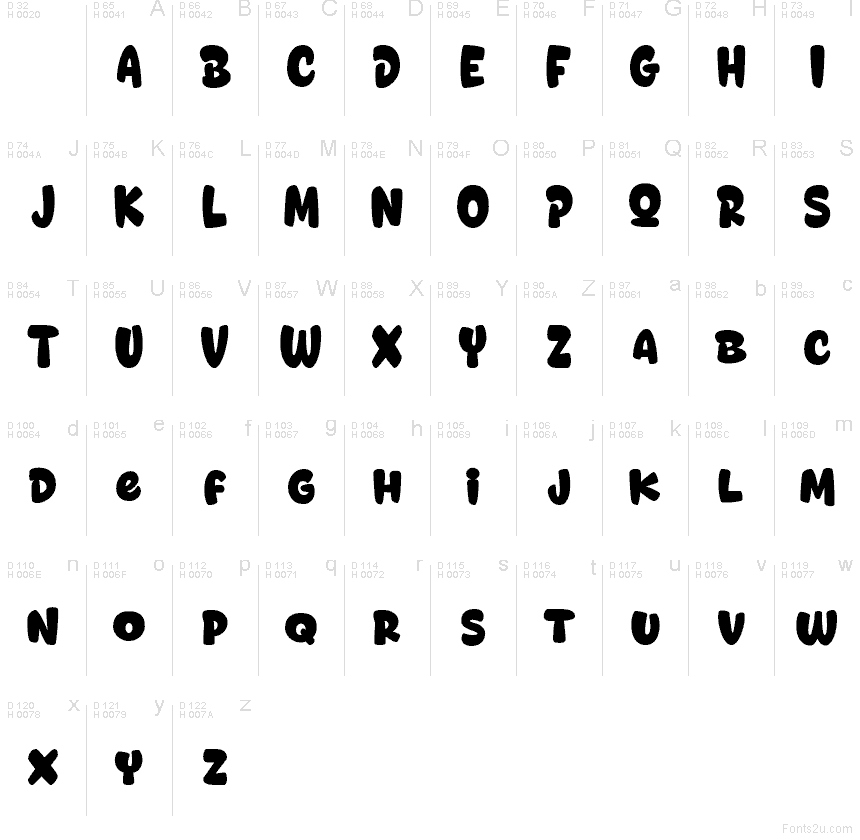
Donut Darling font by Blankids is a free cartoon display typeface with letters that feel puffed, frosted, and fresh from the bakery. Each rounded, chunky shape looks almost squeezable, with playful curves that stack together like icing blobs on a donut box. The tight, bouncy rhythm gives your words a joyful, hand-drawn energy that’s easy to read while still looking delightfully indulgent.
Using Donut Darling, this free font shines on kids’ packaging, dessert shop logos, birthday invitations, playful social posts, headline banners, and food truck menus. Its bold weight holds up beautifully at large sizes, where every gooey curve can be seen. Pair this typeface with a clean geometric sans for body text to keep layouts fun but still organized and readable.
Donut Darling